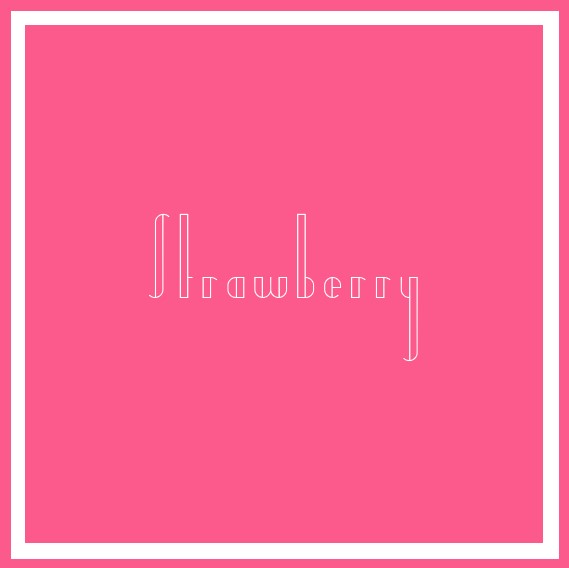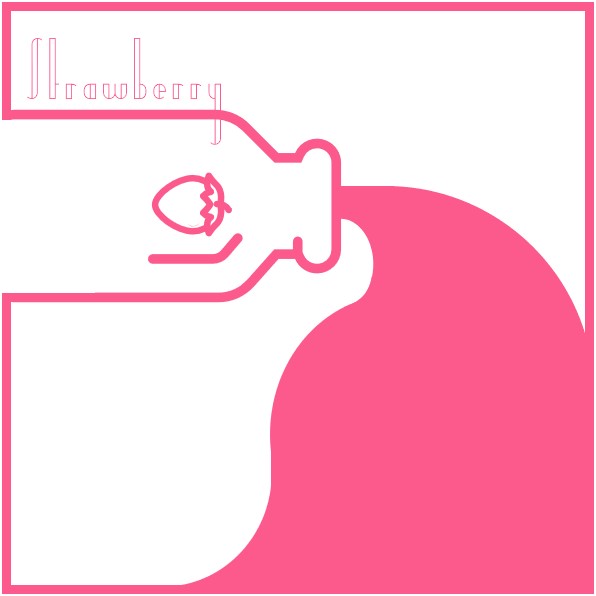
• A twenties era font with the uppercase measuring twenty glyphs tall, the lowercase measuring five glyphs tall by four glyphs wide, to multiply out to twenty, and incorporating exactly twenty different glyphs to boot.
It was really quite fun seeing all of the ways to sneak the number twenty into this font for the competition. Please enjoy!
woah! cool that the style and the dimensions are both 20s!
I like the light and "airy" feeling of this!
Lovely work, as tall as the skyscrapers in these Art Deco Posters.
As always a delicate and elegant use of space. Sometimes simple is best.
A more dynamic illustration